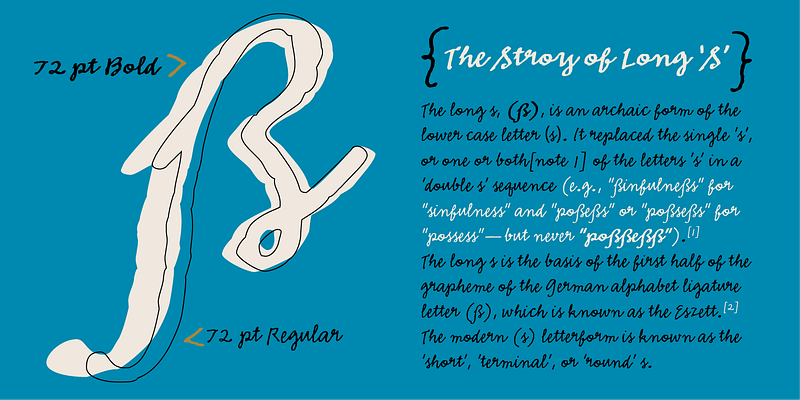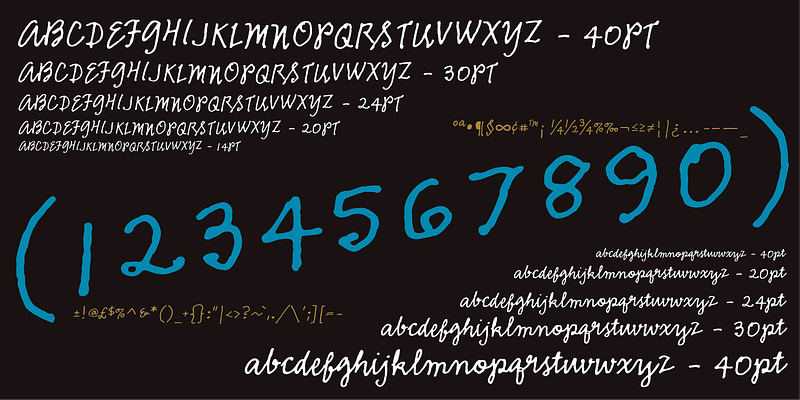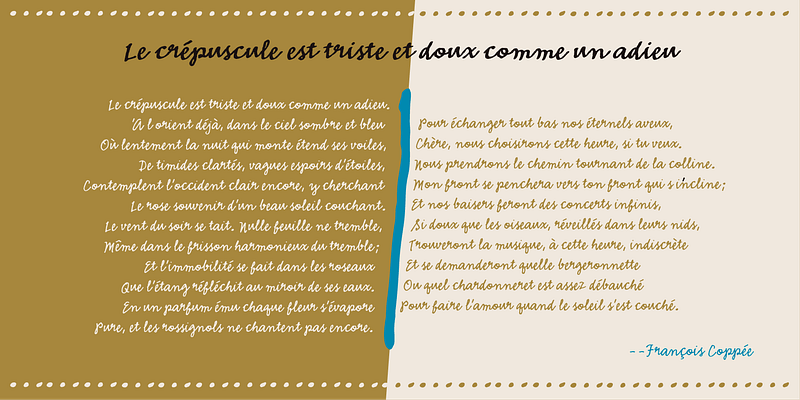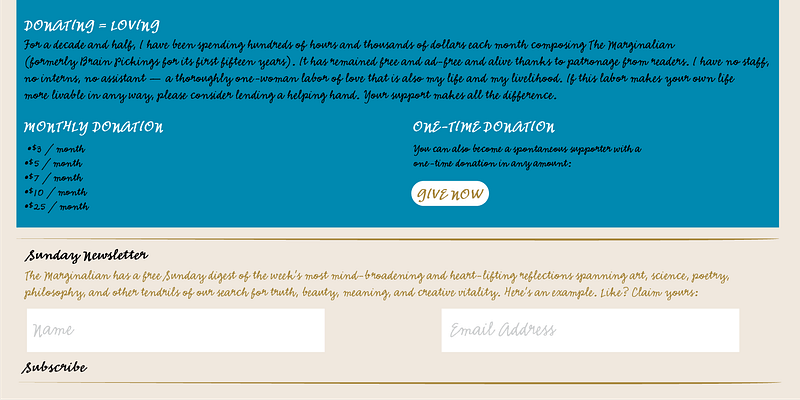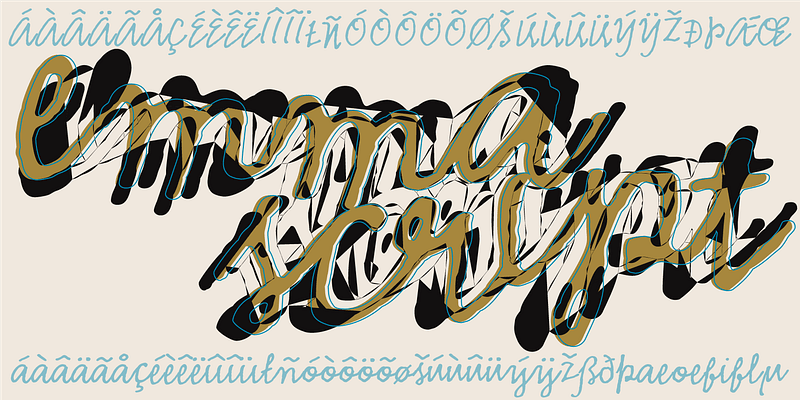
Kanna Aoki drew the letters for MVB Emmascript while on a picnic near the Conservatory of Flowers in San Francisco’s Golden Gate Park. Mark van Bronkhorst adapted the writing as a font that maintains a very natural scrawl. Later a bold weight was added. MVB Emmascript has been used to add a lighthearted, human touch to everything from fiction paperbacks to potato chip packaging. The typeface is named for Aoki’s 1968 Volkswagen, Emma.